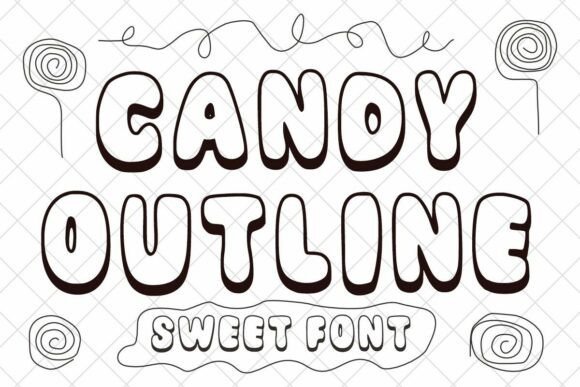
Unwrapping the Sweet Charm of Design
Who hasn’t, at some point, gazed at a colorful candy wrapper or a whimsical sign, and felt a spark of creativity? The nostalgia and playfulness of these visuals can be a powerful source of inspiration for designers. For those looking to capture this essence in their work, the Candy Outline Font is a perfect starting point.
This delightful font is characterized by its bold, bubbly letterforms and whimsical shadow detailing, making it a standout choice for projects that require a touch of fun and friendliness. Whether you’re designing a children’s book title, candy packaging, or a logo for a sweet shop, the Candy Outline Font is an excellent choice for adding a youthful, joyful, and lighthearted tone to your work.
Candy Outline Font Key Features
- Unique Characteristics: The Candy Outline Font features a distinctive outline design with bold lines and rounded edges, giving it a playful and whimsical feel.
- Legibility: Despite its playful design, the Candy Outline Font is highly legible, making it suitable for a wide range of design applications, from logos and graphics to body text and signage.
Candy Outline Font Review
Overall, I think the Candy Outline Font is a sweet addition to any design project. ✨ The playful, whimsical feel of this font is perfect for anything from children’s books to dessert menus. Its outline design makes it super easy to read, even at smaller font sizes.
The Candy Outline Font comes in a variety of weights and styles, which is great for adding some extra flair to your designs. ✨ I love how you can mix and match the different weights to create a fun, layered look. The font is also super versatile, working well in both digital and print projects.
- ⚠️ Limited to uppercase and lowercase letters, which can make it tricky to use for titles or headings.
- ⚠️ Not suitable for formal or professional projects, as it may come across as too playful or childish.
- ⚠️ Some of the letters may not be as smooth or refined as you’d like, which can affect the overall look of your design.
Overall, I’d say the Candy Outline Font is a great choice for anyone looking to add a little fun and whimsy to their designs. Just be sure to use it in the right context and take advantage of its strengths to create a cohesive, eye-catching look.
Tips: Use the Candy Outline Font to create eye-catching titles and headings. Experiment with different font sizes and colors to achieve a playful look.
Tips: Use the Candy Outline Font to create custom graphics and illustrations. Combine it with other fonts and graphics to create a unique design.
Tips: Use the Candy Outline Font to add a touch of whimsy to your presentations and documents. Experiment with different font combinations to create a visually appealing design.
The Candy Outline Font is perfect for:
- Food and dessert labels
- Playful social media graphics
Remember to have fun and be creative when using the Candy Outline Font!